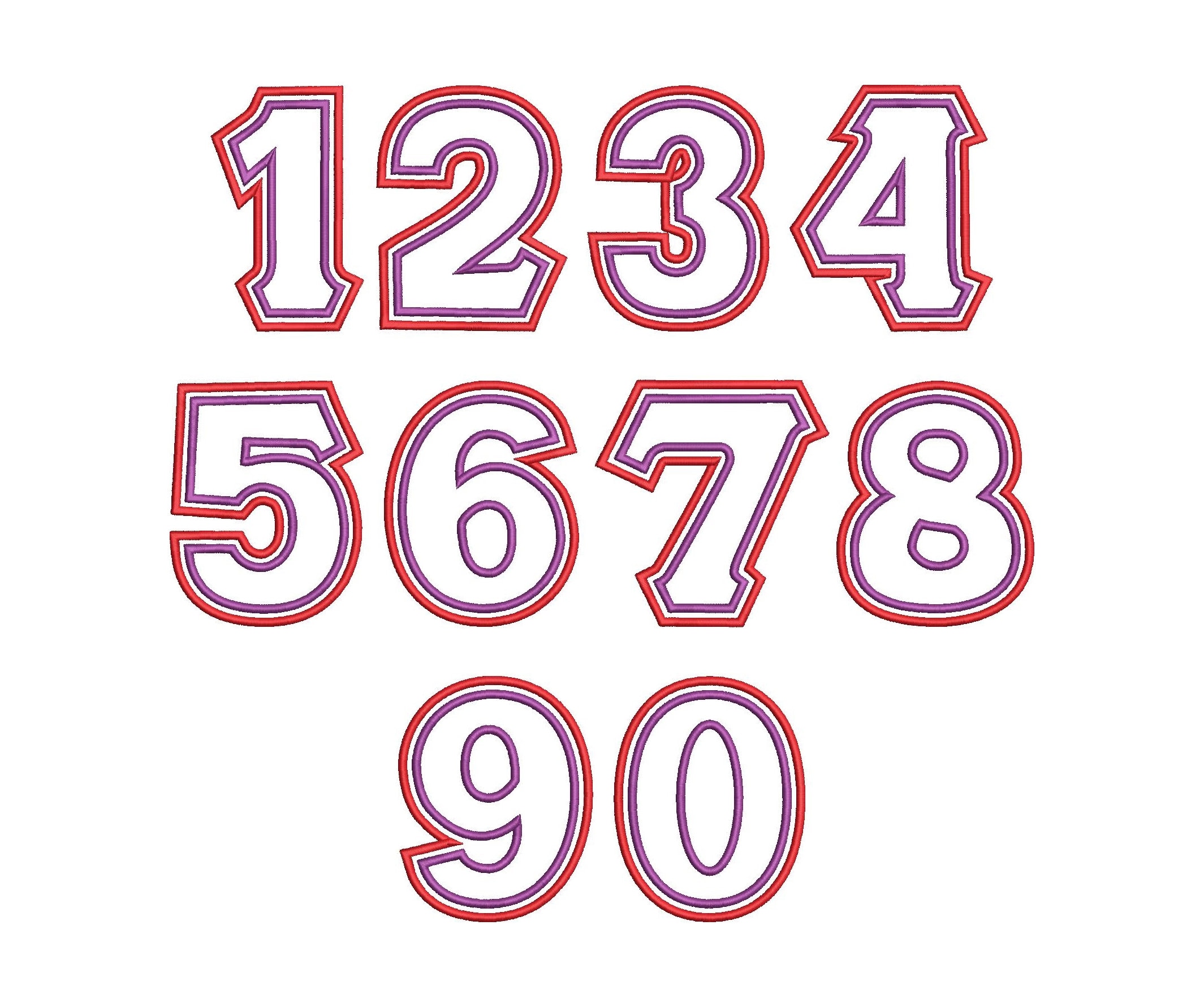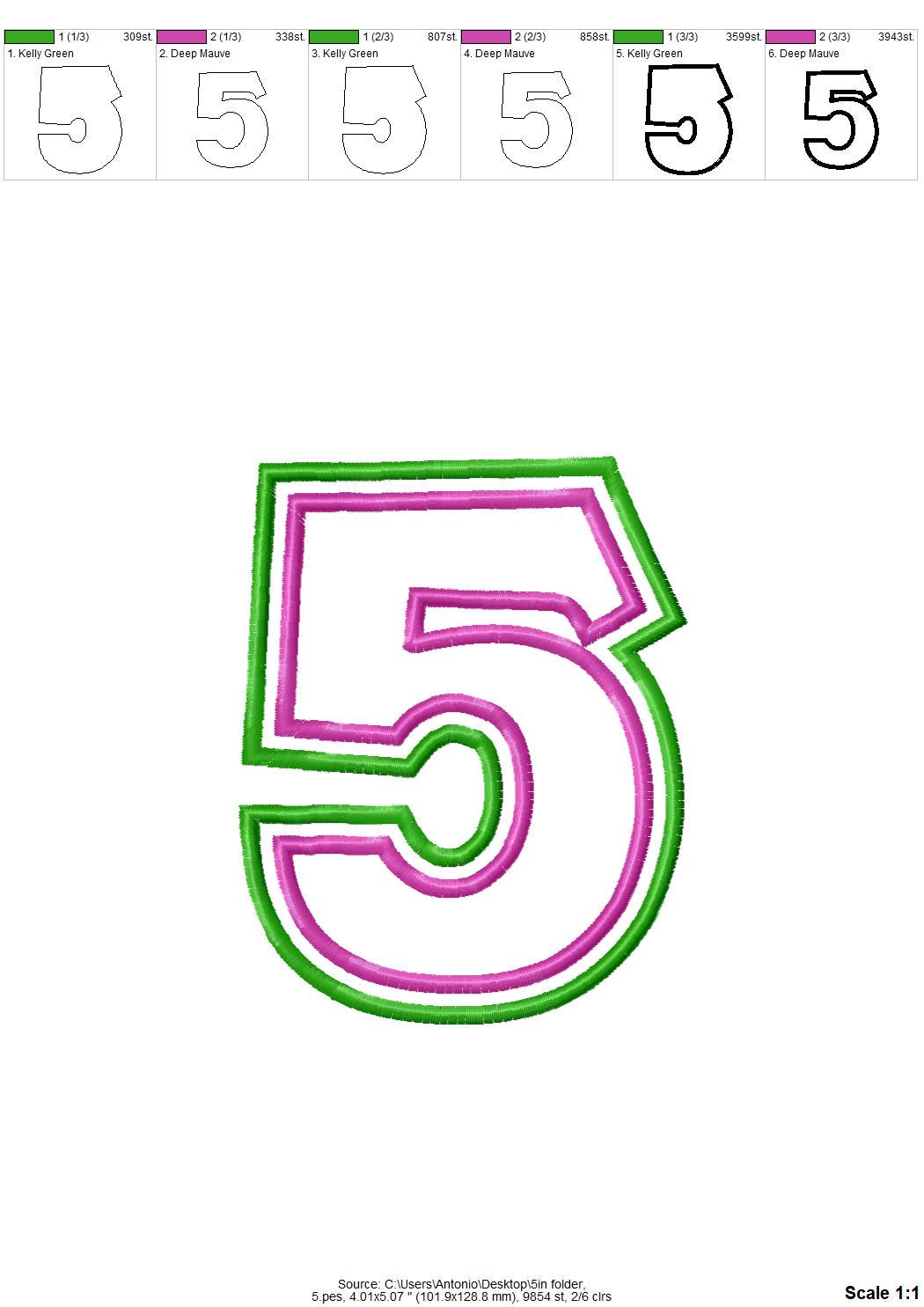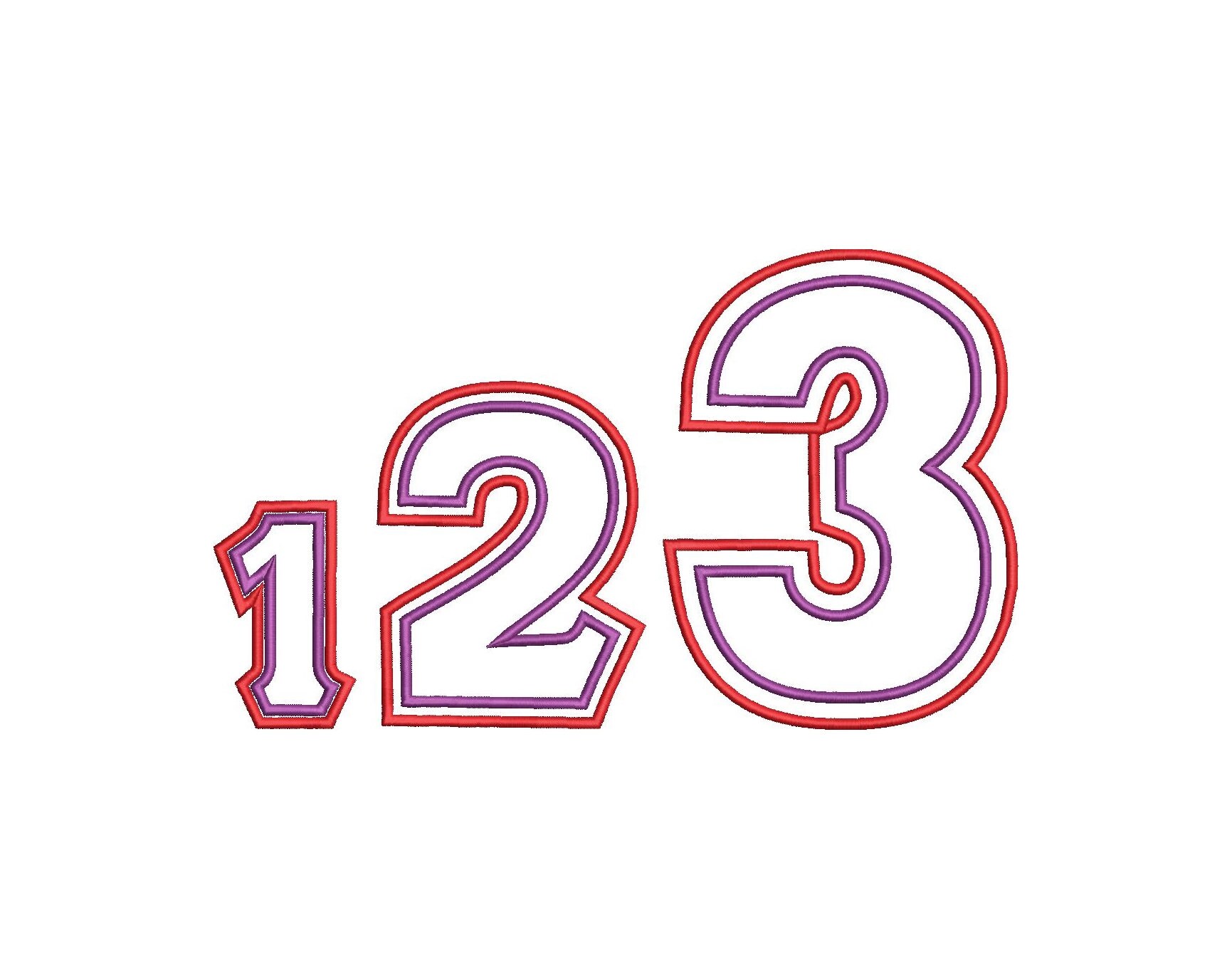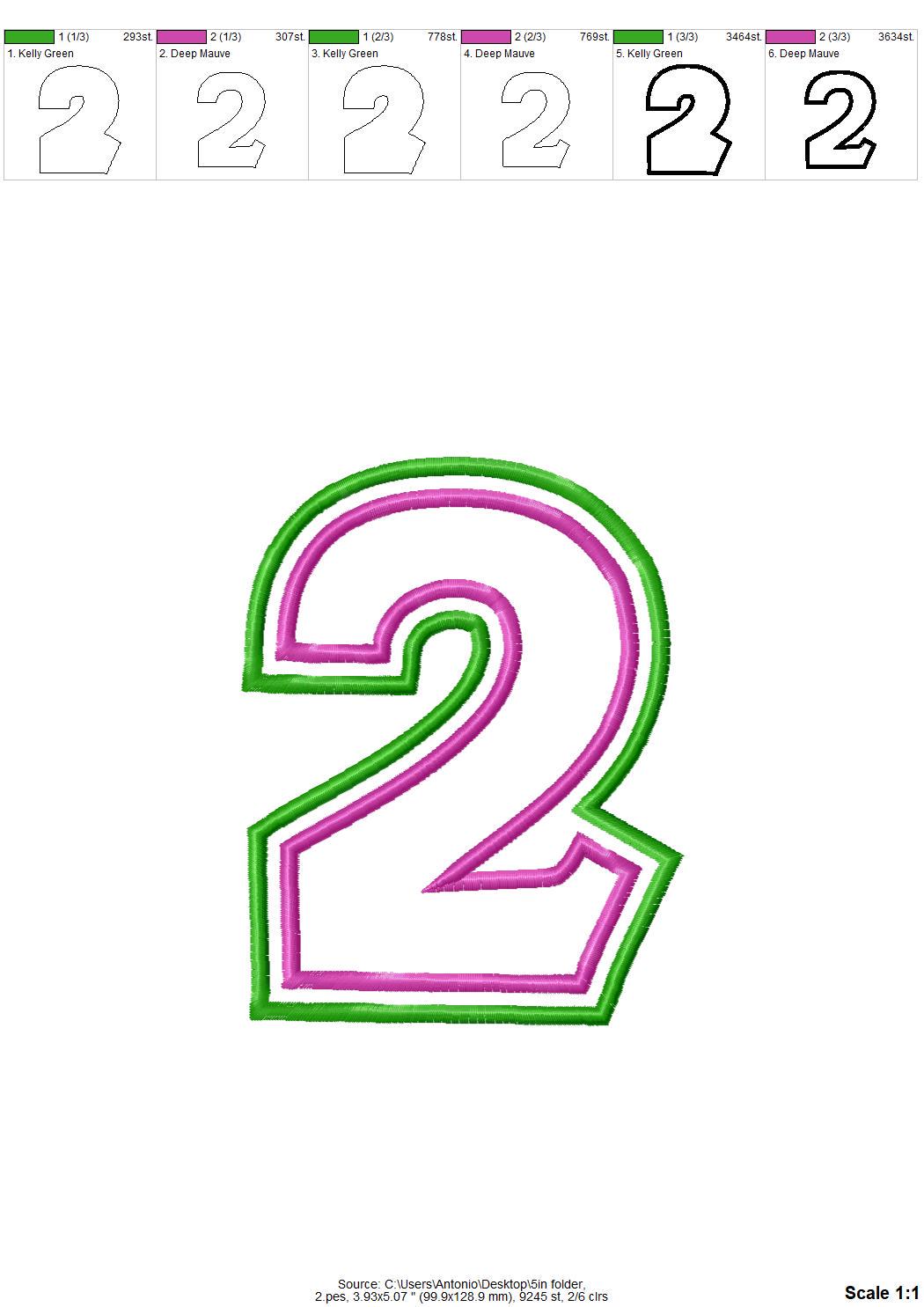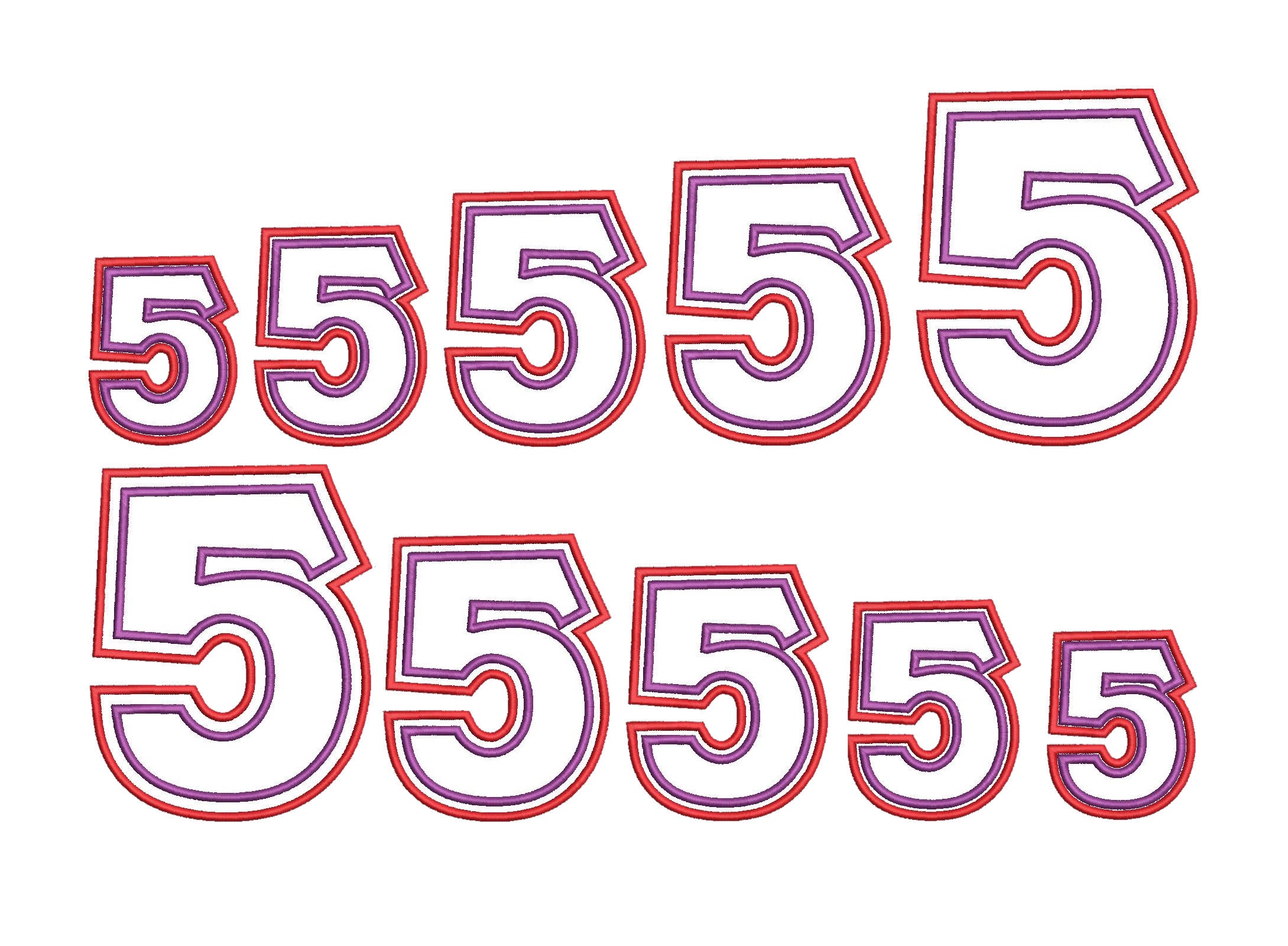
Classic Greek Font NUMBERS set 1-9, from 1 up to 9, satin 2 layers applique 2 colors machine embroidery designs many sizes, BX file included
Letters are 2 step applique with standard classic applique satin stitch finish